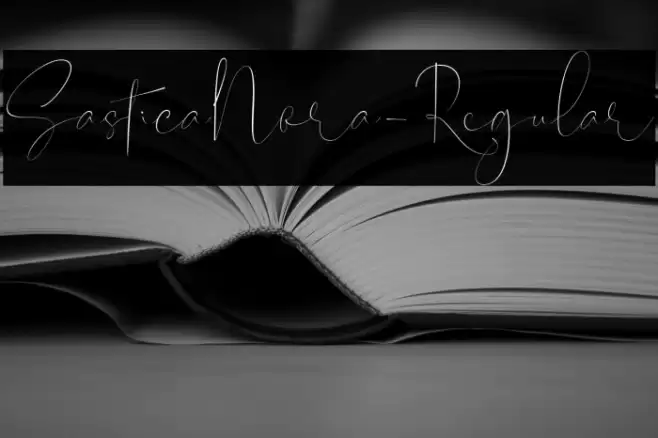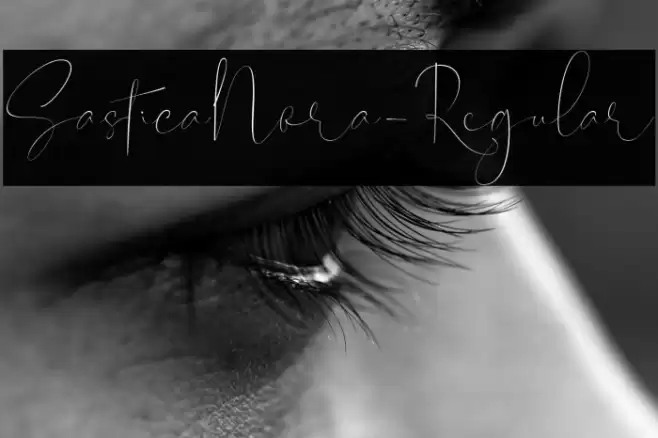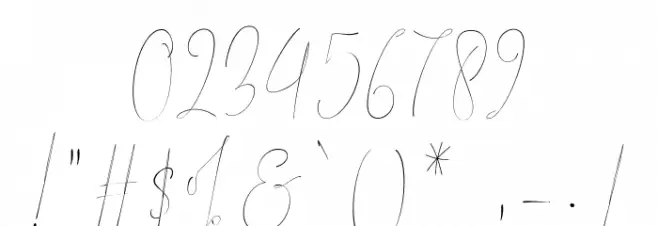
SasticaNora-Regular Font
SasticaNora-Regular Description
This font features a delicate and elegant script style, characterized by its flowing, cursive letterforms. The strokes are thin and graceful, with a consistent fluidity that gives it a sophisticated appearance. The uppercase letters are slightly more ornate, with some letters featuring loops and swashes that add a touch of flair. The lowercase letters maintain a smooth and connected style, enhancing the overall cohesiveness of the font. Numbers and special characters are designed to match the script's elegant aesthetic, ensuring a harmonious look across all text. This font is ideal for projects that require a touch of elegance and sophistication.
A delicate and elegant script font with flowing, cursive letterforms from Uncategorized fonts.
- Proposed Projects: Wedding invitations, greeting cards, elegant branding, and high-end product packaging.
- Weight: Light
- Overall Style: Elegant
- Use Case: Logos, Invitations, Decorative text